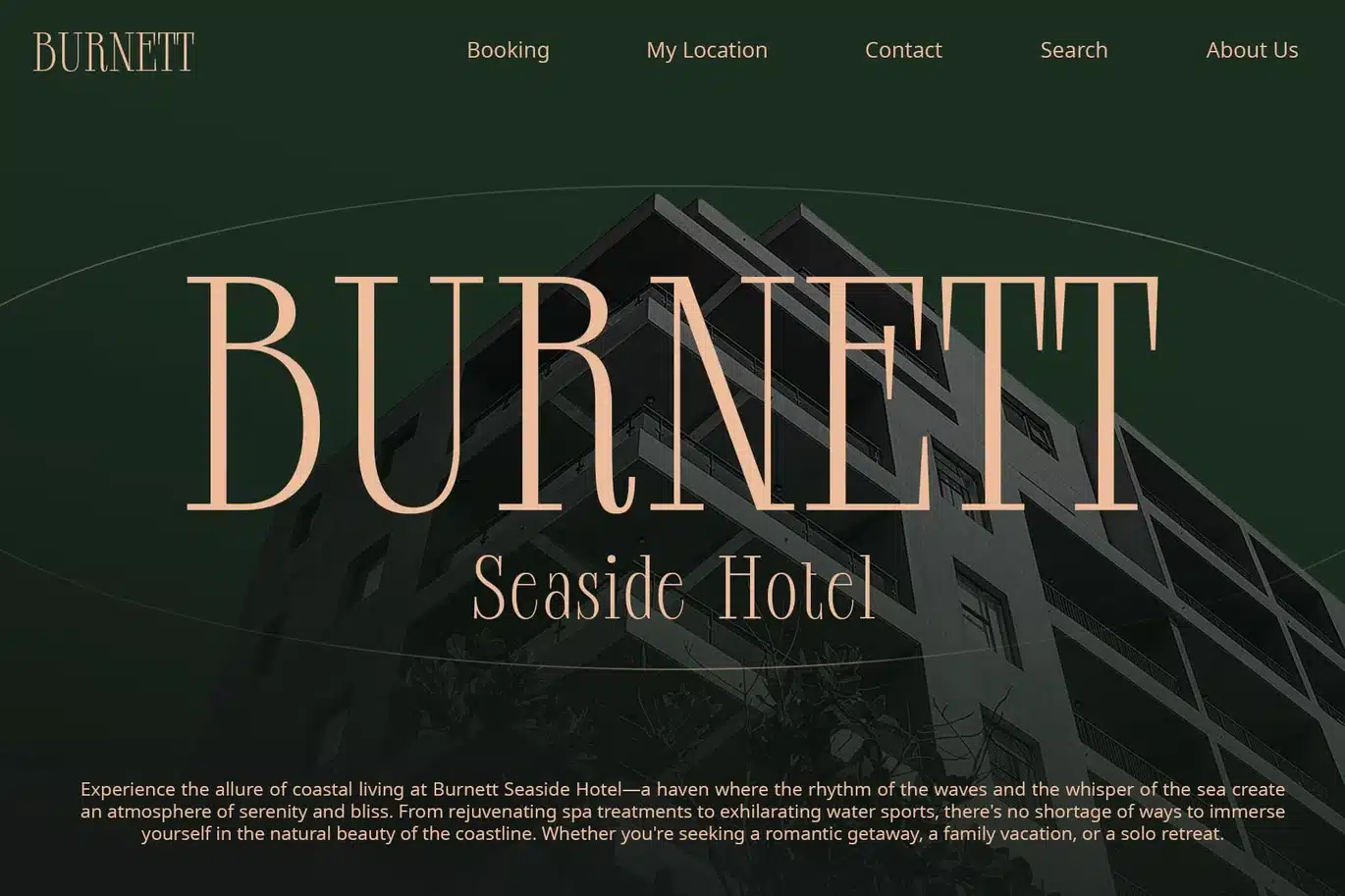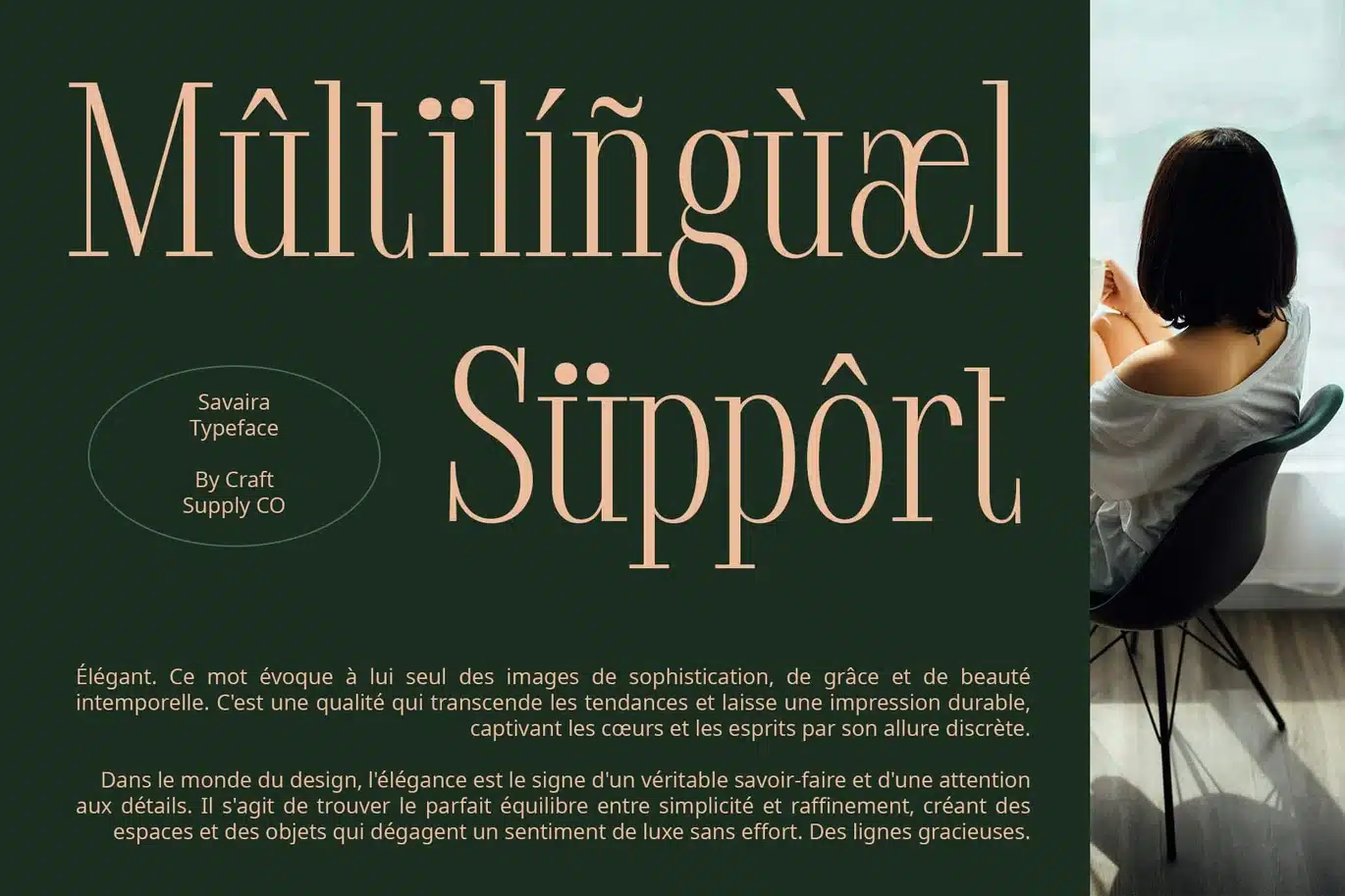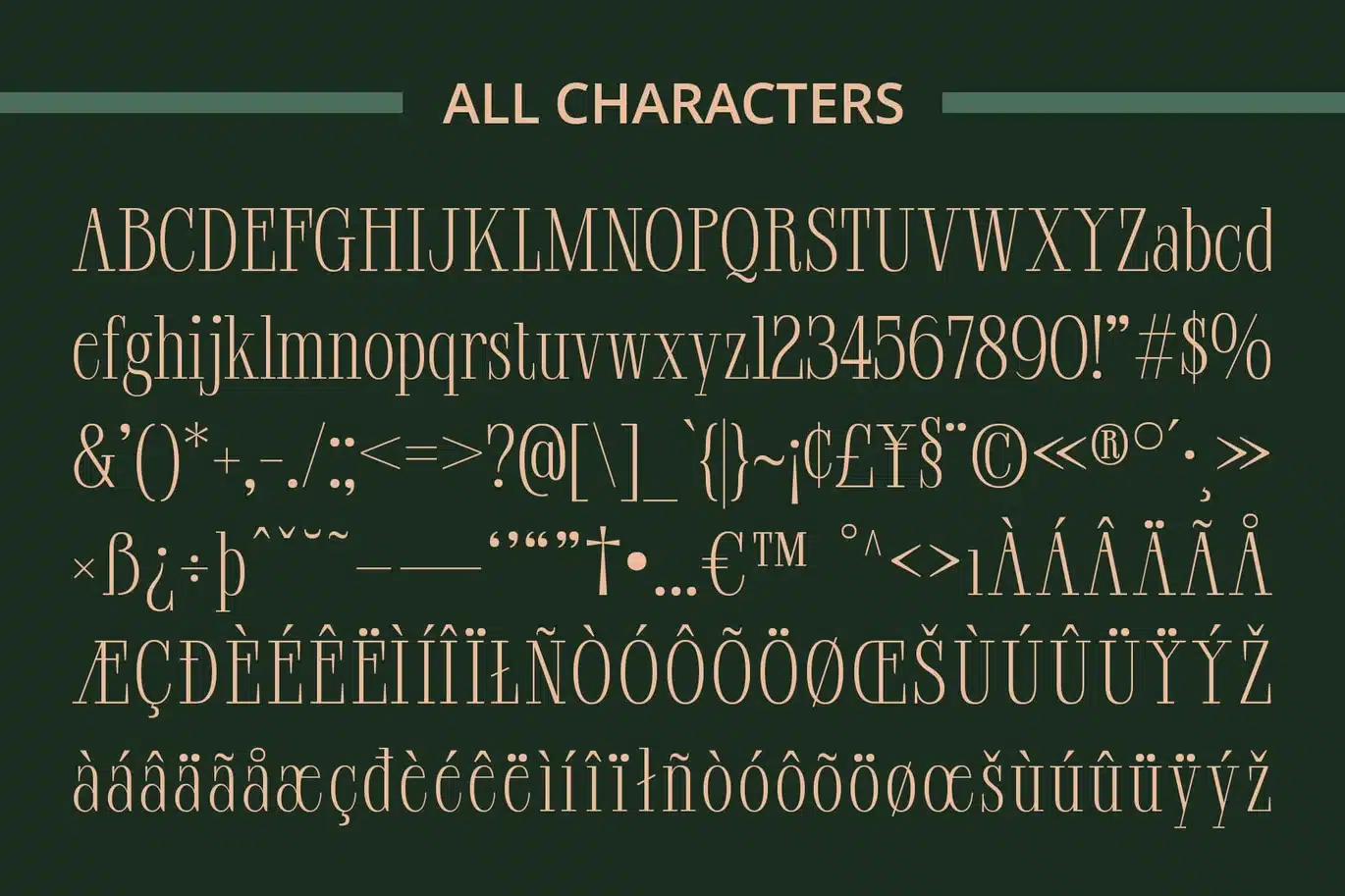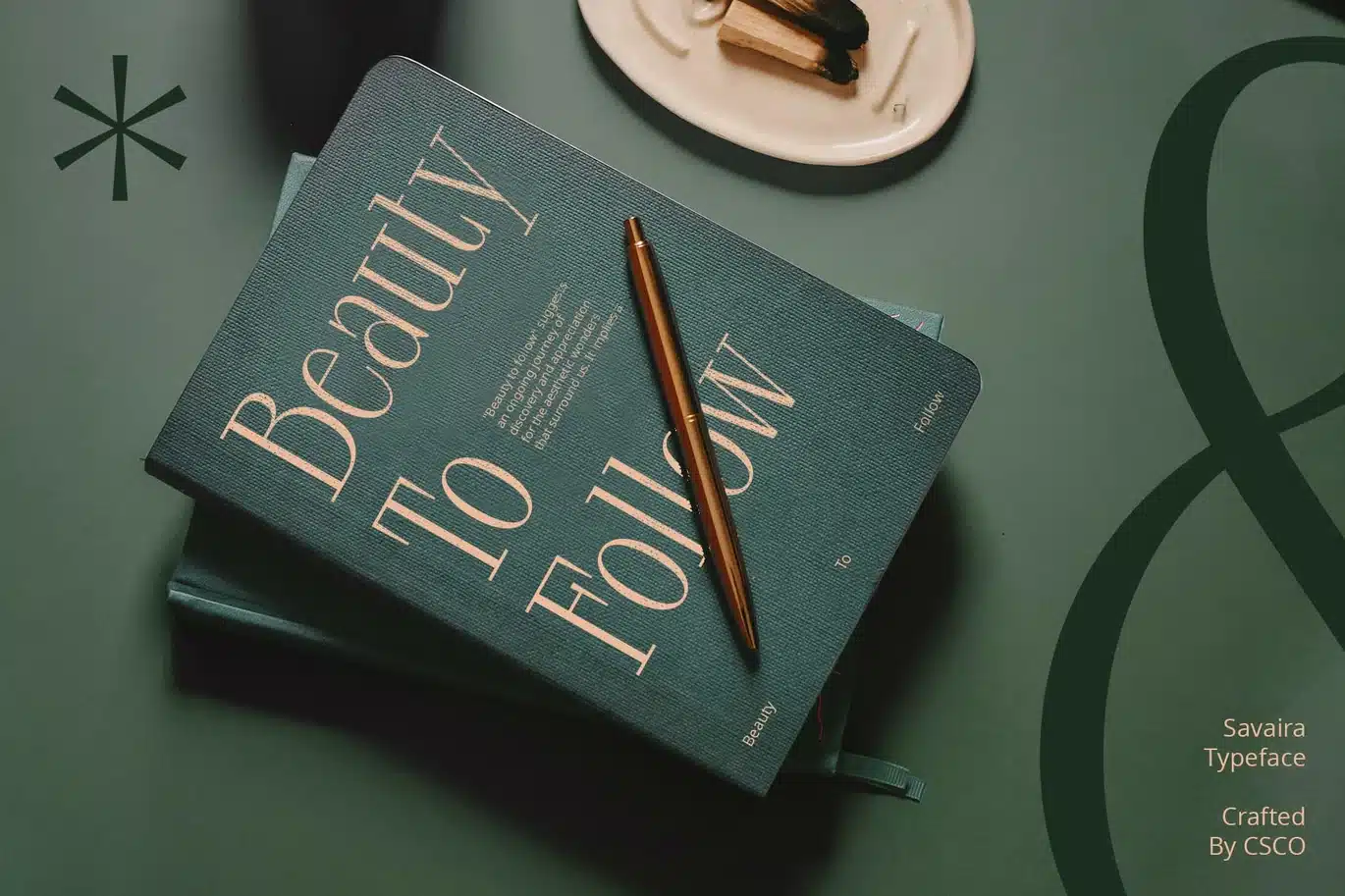
Savaira Font
Savaira Elegant Font: A Delicate Balance
Moderate Contrast, Refined Elegance
Savaira Elegant Font strikes a delicate balance with its moderate contrast and condensed serif form, exuding refined elegance in every character.
Sleek and Sophisticated Design
With its condensed structure, This presents a sleek and sophisticated appearance, perfect for projects requiring a touch of class and sophistication.
Elevating Typography with Elegance
This Elegant Font elevates typography to new heights with its elegant aesthetic, making it ideal for upscale branding, editorial design, and luxury packaging.
Versatile Application in Design
From logos to headlines, This font offers versatility in design applications, ensuring a seamless integration into various projects seeking a balance of elegance and readability.
Sophistication Redefined
This Elegant Font redefines sophistication with its moderate contrast, condensed form, and elegant allure. Elevate your design projects with its refined aesthetic, adding a touch of class to every composition.